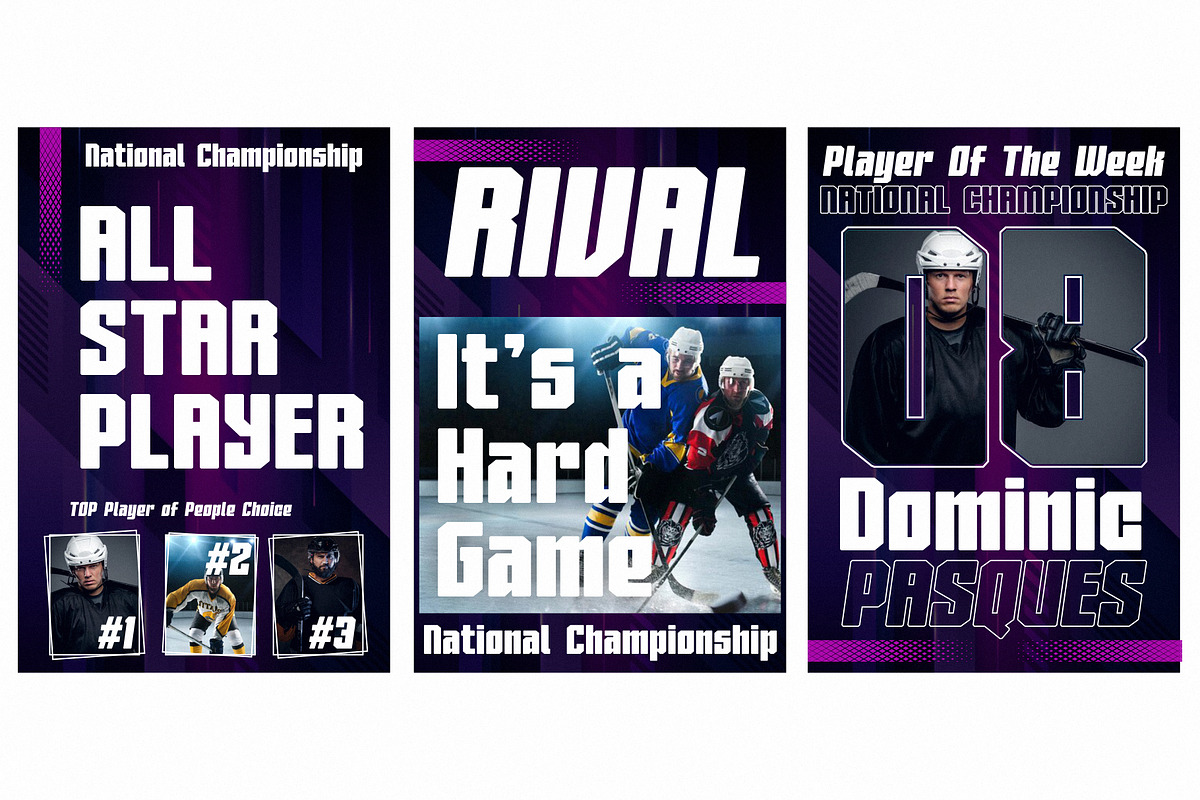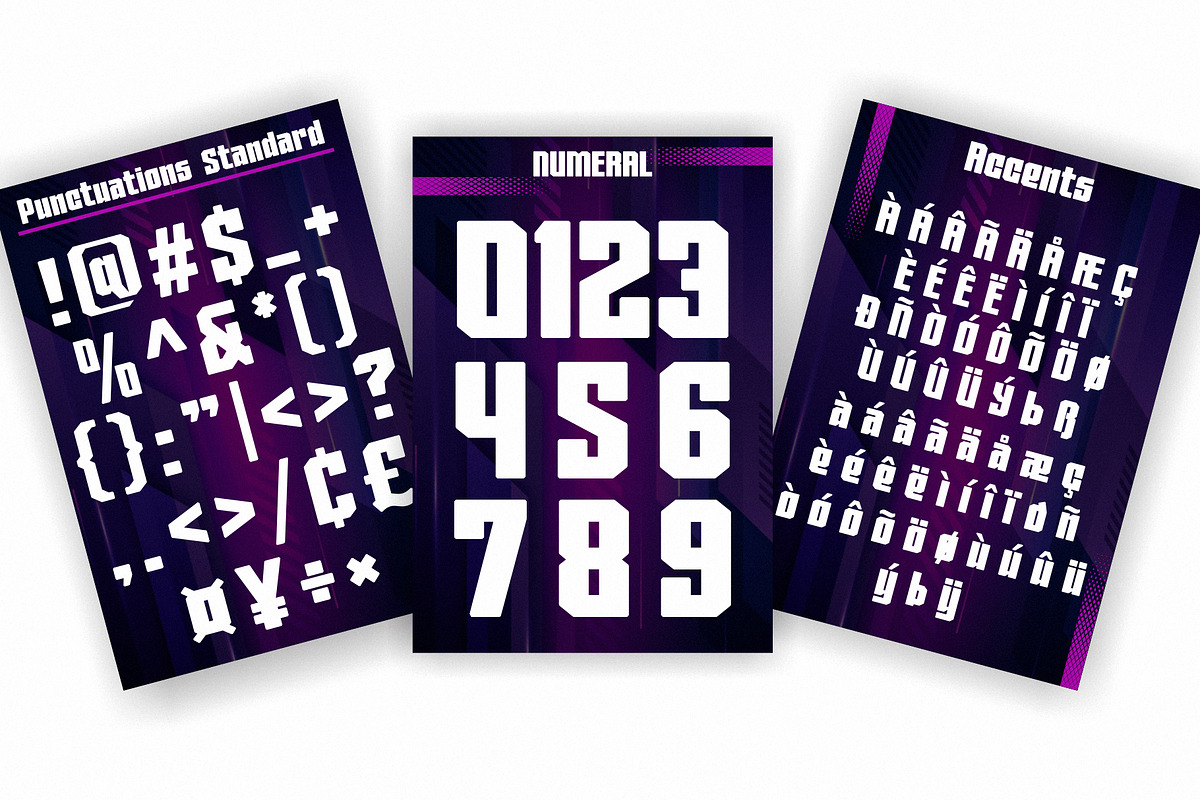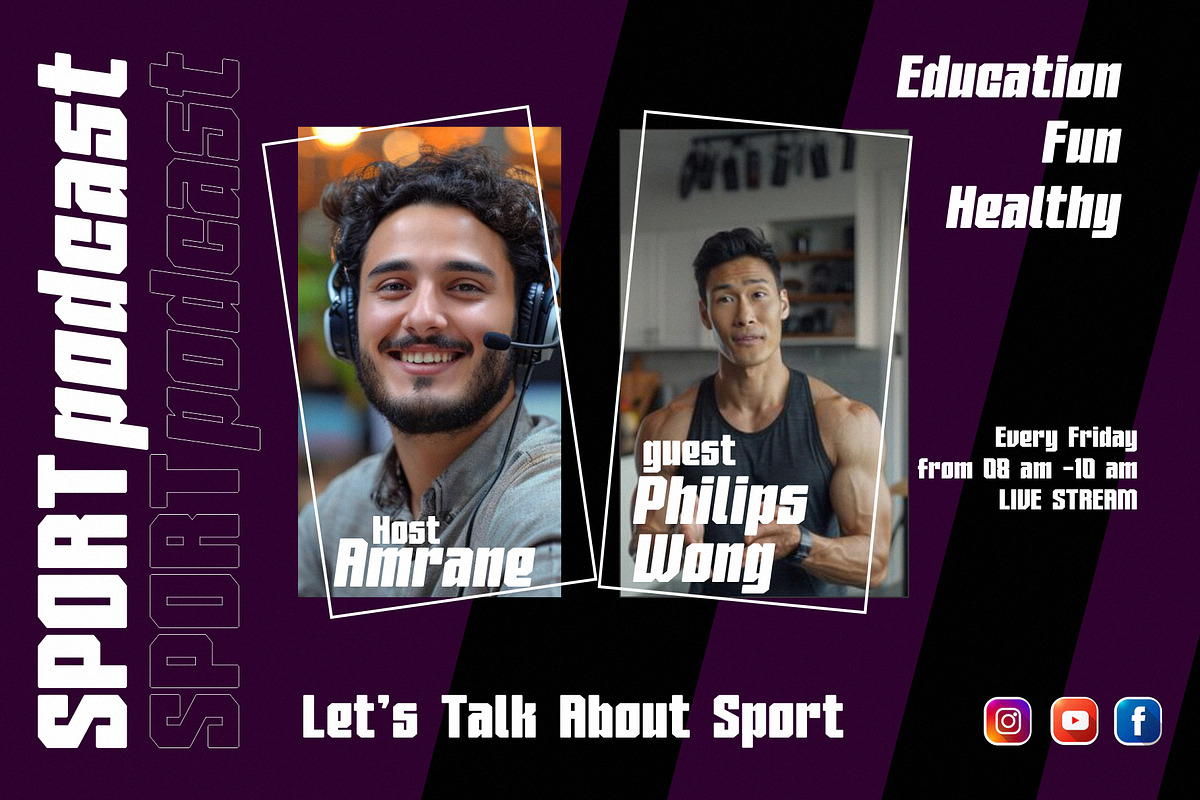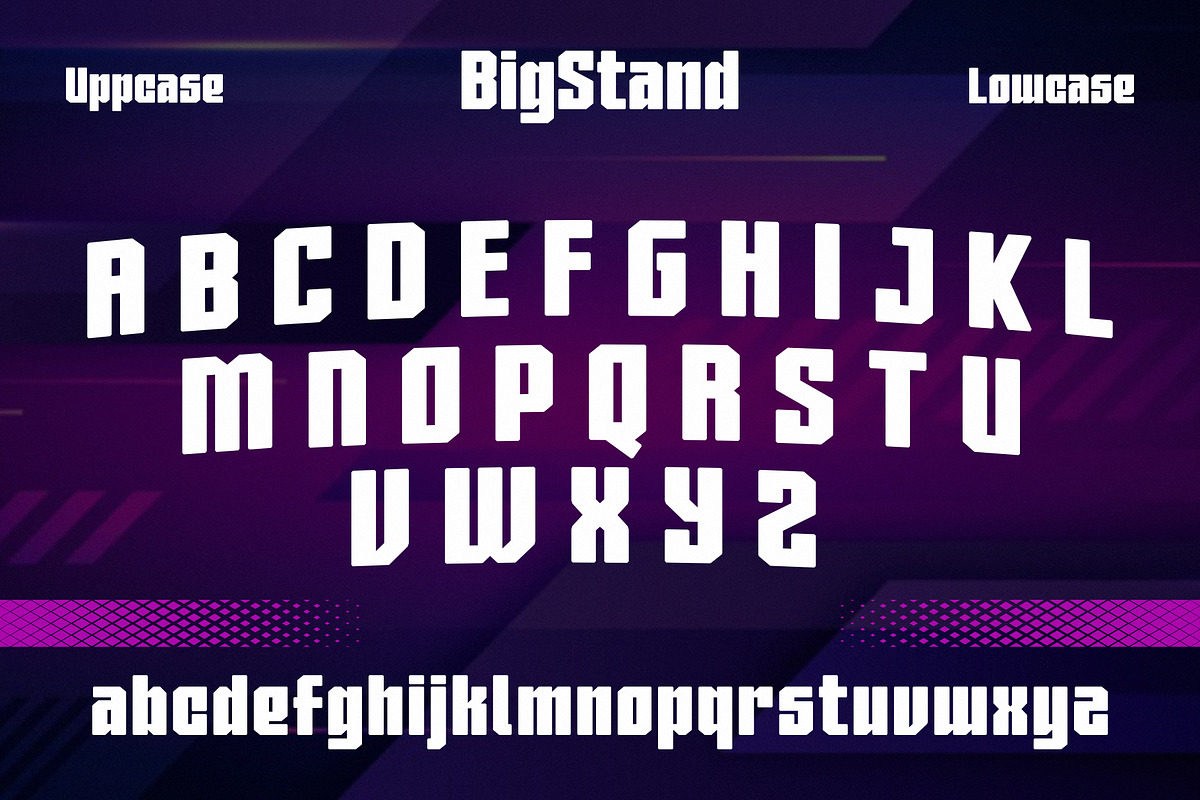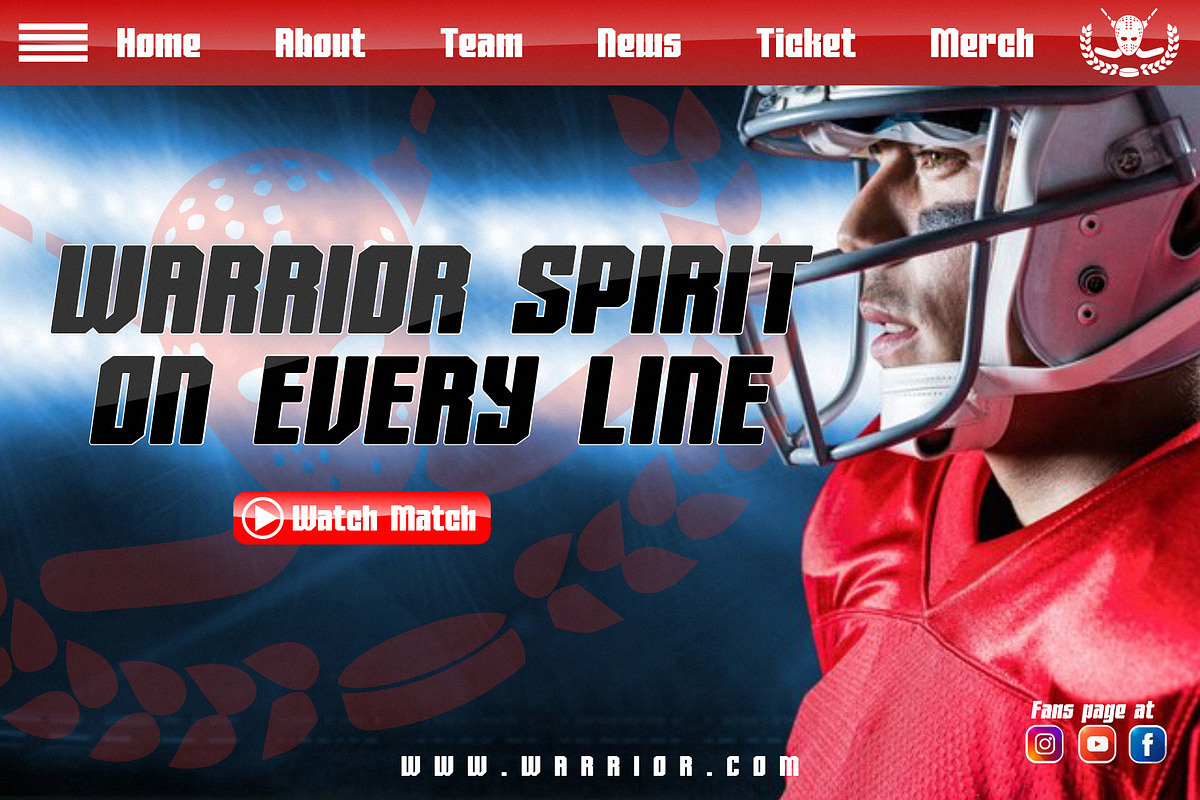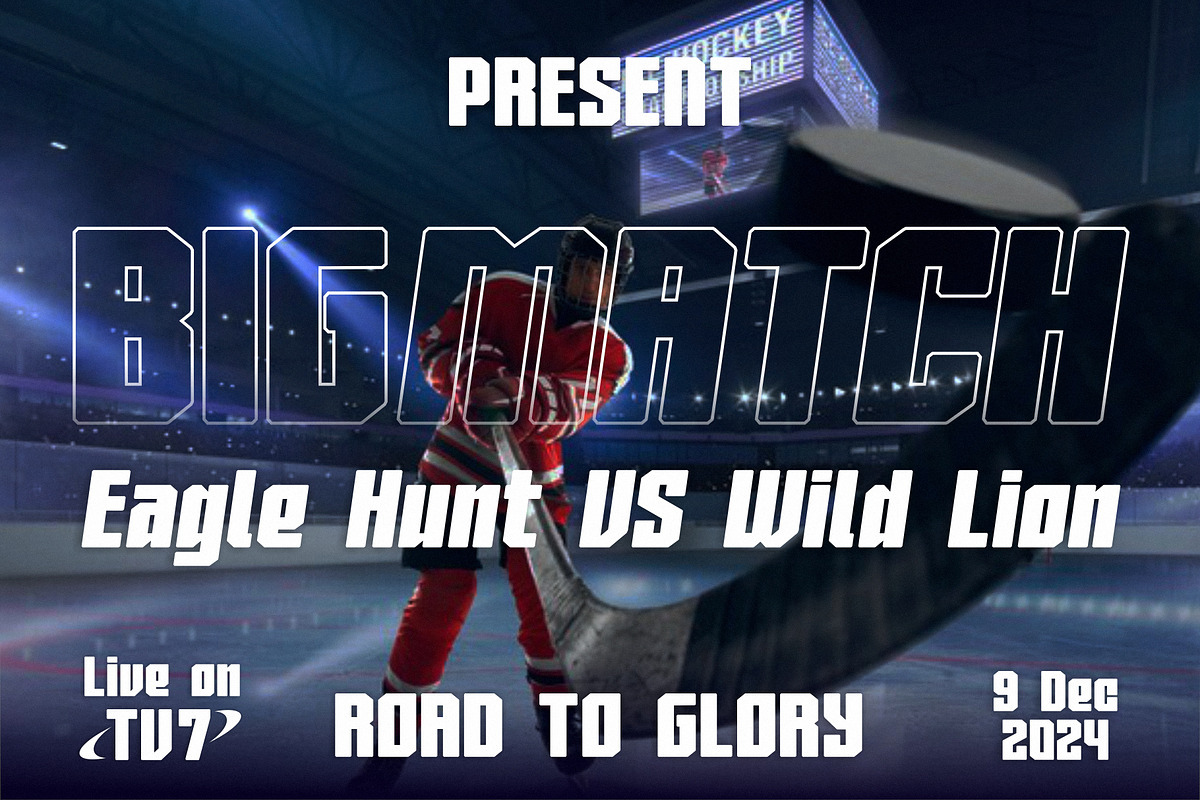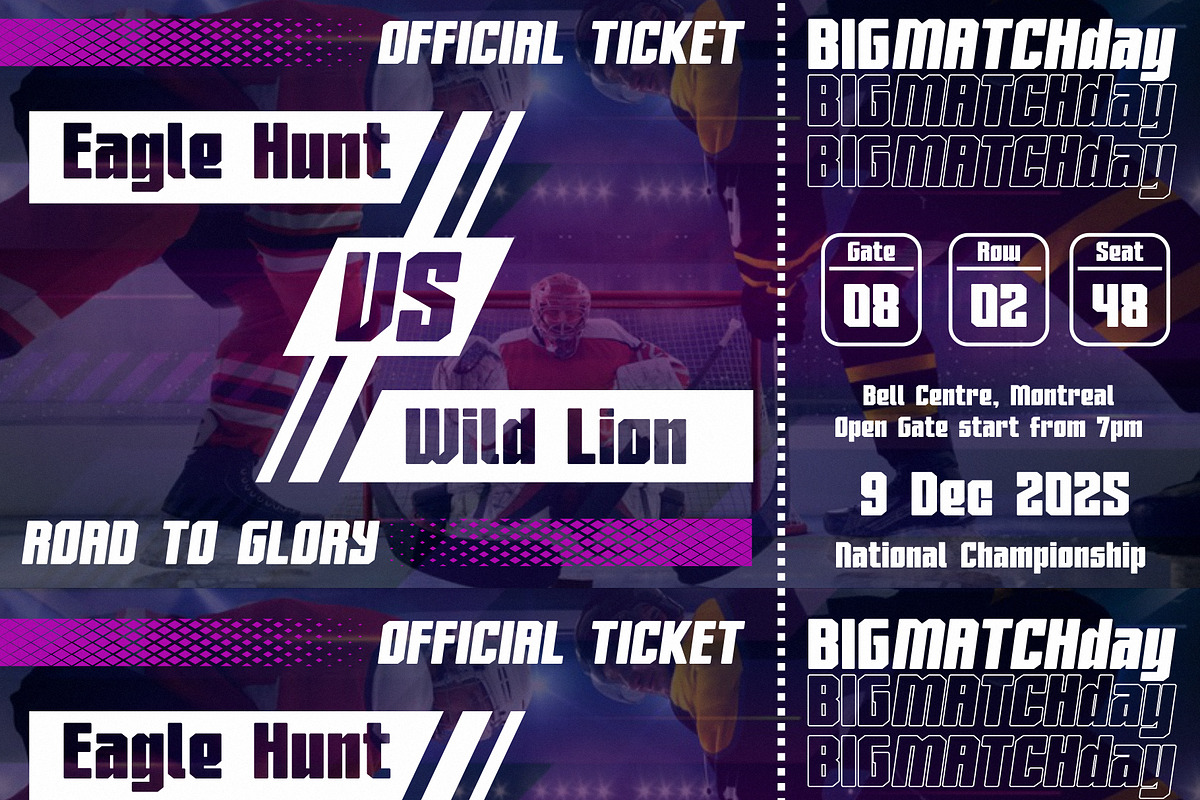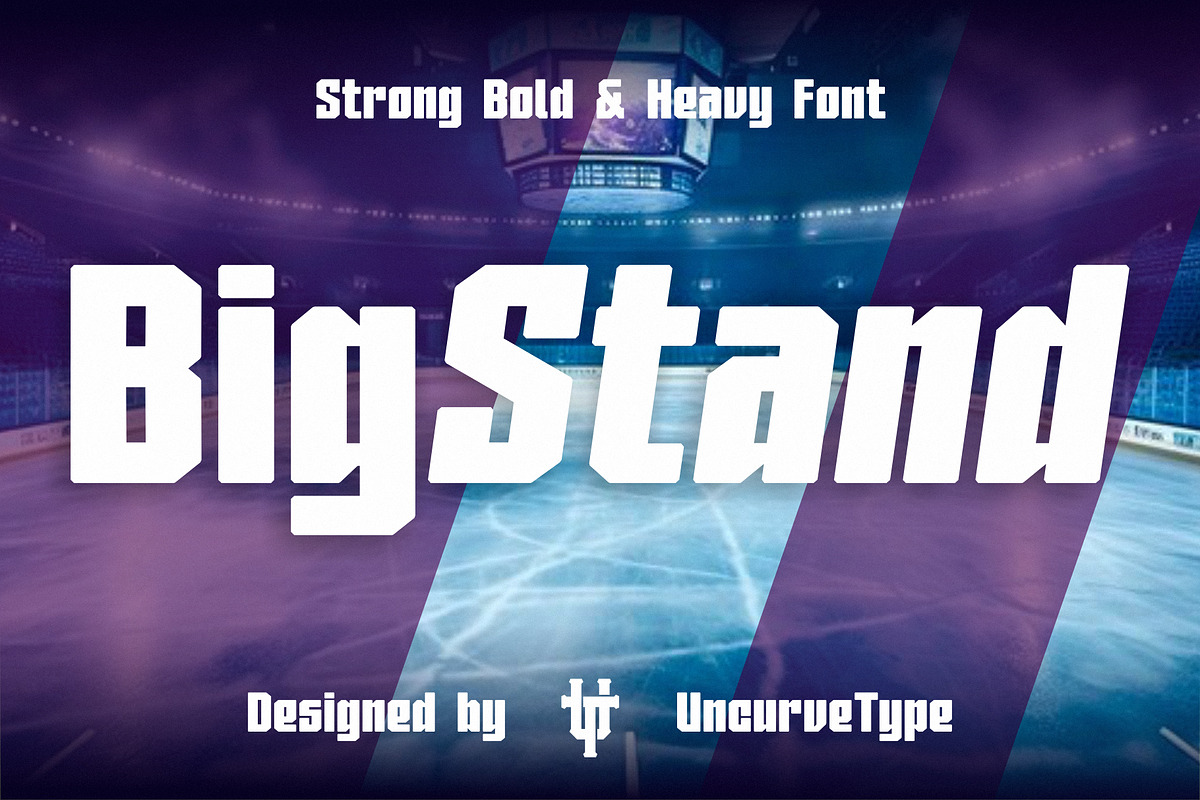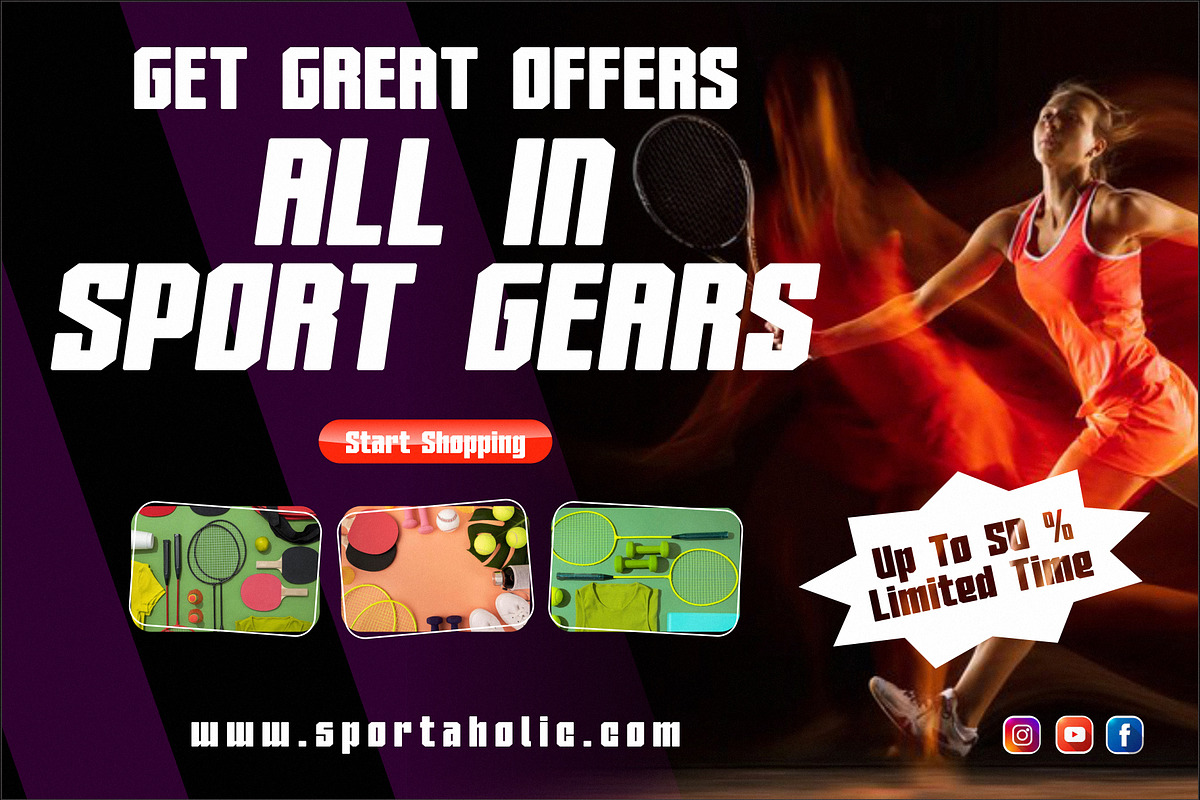
Bigstand
Introducing "Bigstand," a bold, dynamic font designed to deliver a powerful impact in every design.
With two styles—Regular and Slant—Bigstand offers versatility and the perfect combination for creating eye-catching, adrenaline-fueled designs. Inspired by the energy and intensity of bold sports, this font is made to elevate any project with a sporty, confident vibe.
Bigstand is ideal for authentic logos, sports designs, flyers, posters, and branding materials. Whether you're working on magazines, book and album covers, movie posters, or apparel designs, Bigstand brings a strong, modern look to the forefront. Perfect for titles, brochures, labels, product packaging, sports events, jerseys, and even automotive designs, it easily adapts to any project related to athletics like football, hockey, running, fitness, rugby, basketball, and more.